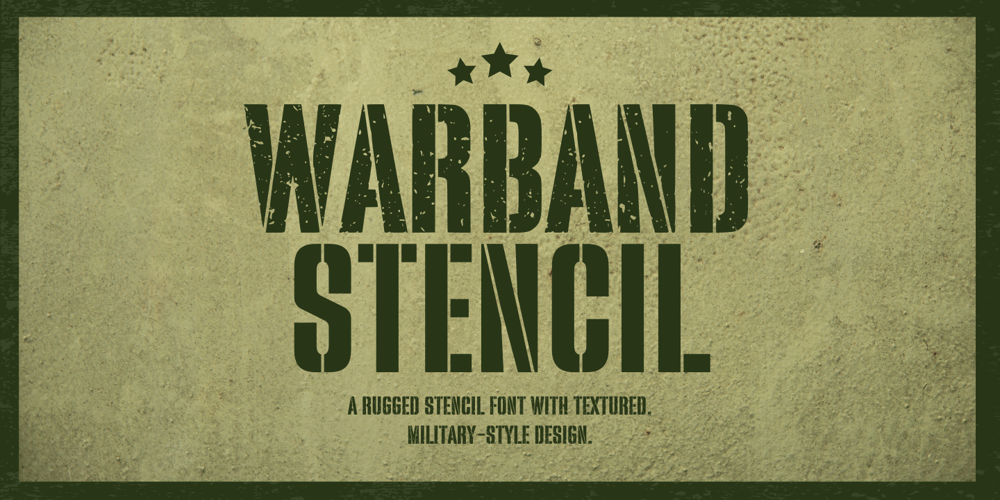
Warband Stencil
Warband Stencil Font Family was designed by Muhamad Yusron Billah and published by Sronstudio. Warband Stencil contains 2 styles and family package options. Warband is a bold stencil and textured font, designed to evoke a rugged, military-inspired aesthetic. Perfect for impactful headlines, posters, and army-themed designs, Warband delivers a strong, gritty feel for projects that need a commanding presence.Included:- Upper & Lowercase- Numeral & Punctuation- PUA Encoded- Multilingual support- Simple Installation- Work both on Mac and WindowsThank you very much ๐Ÿ™‚